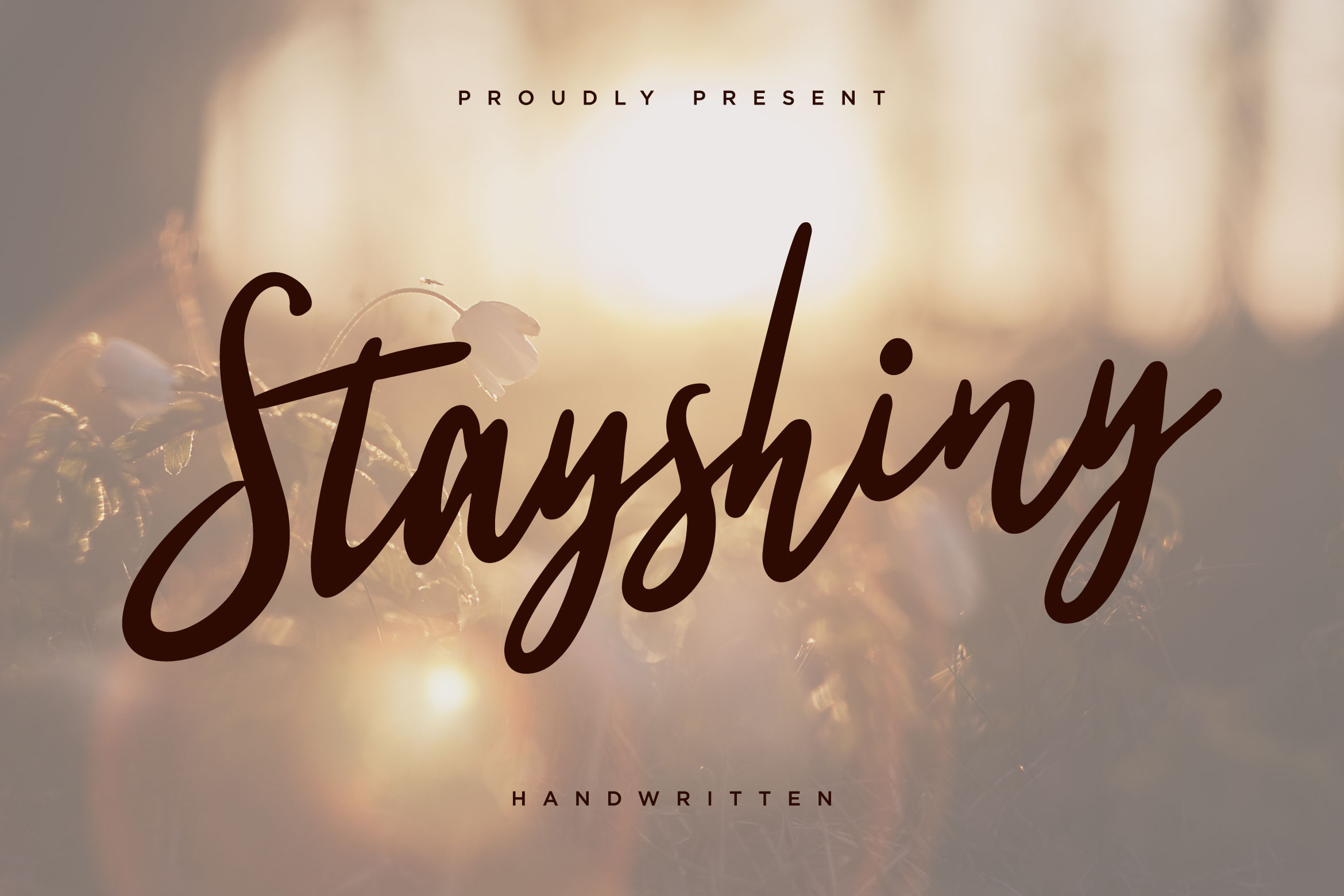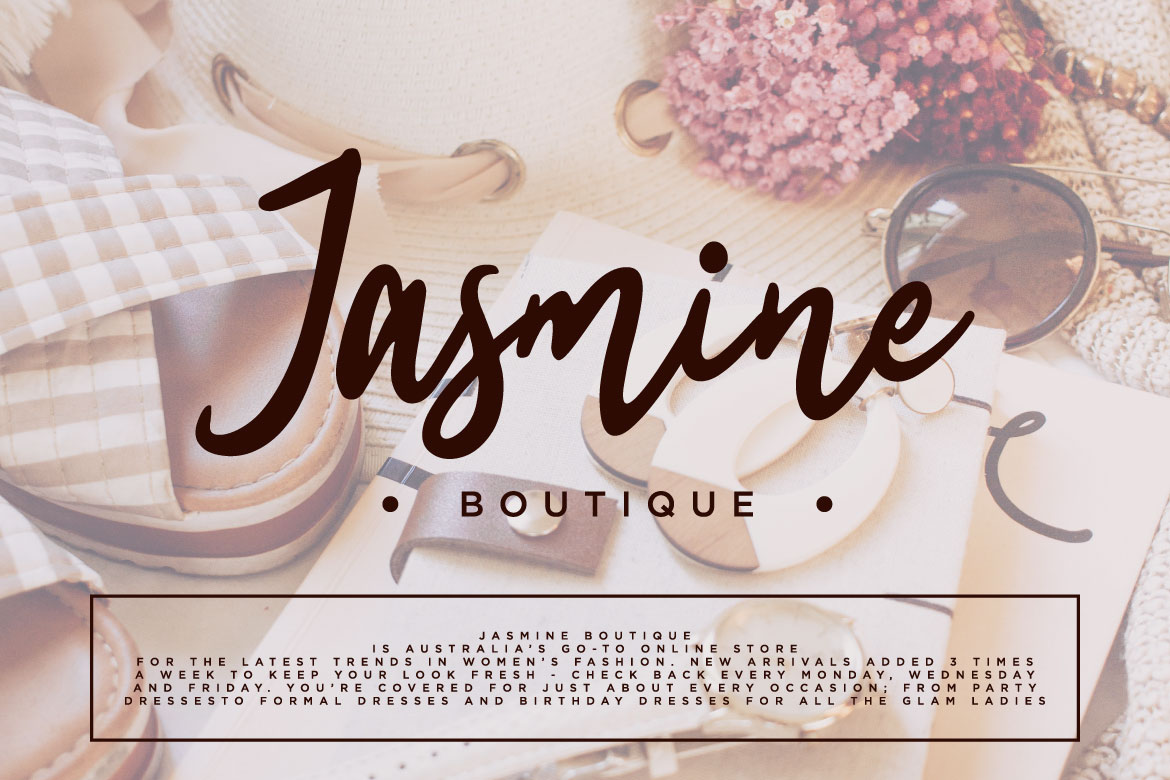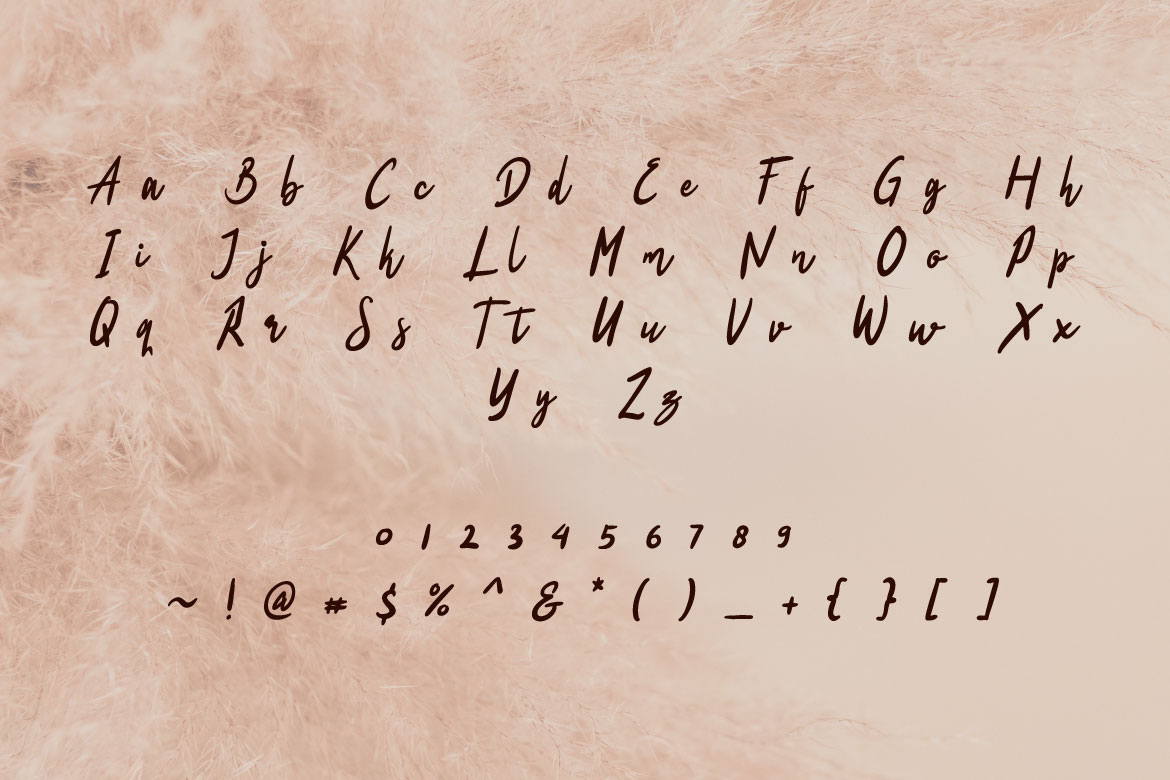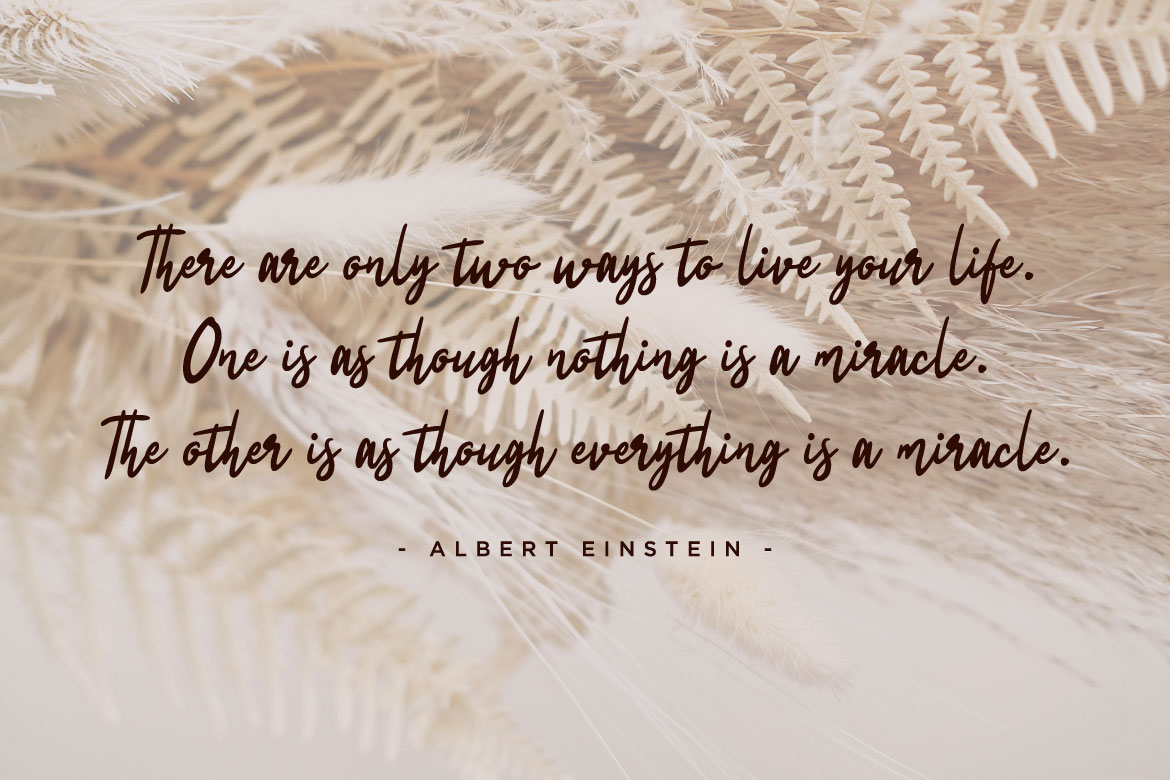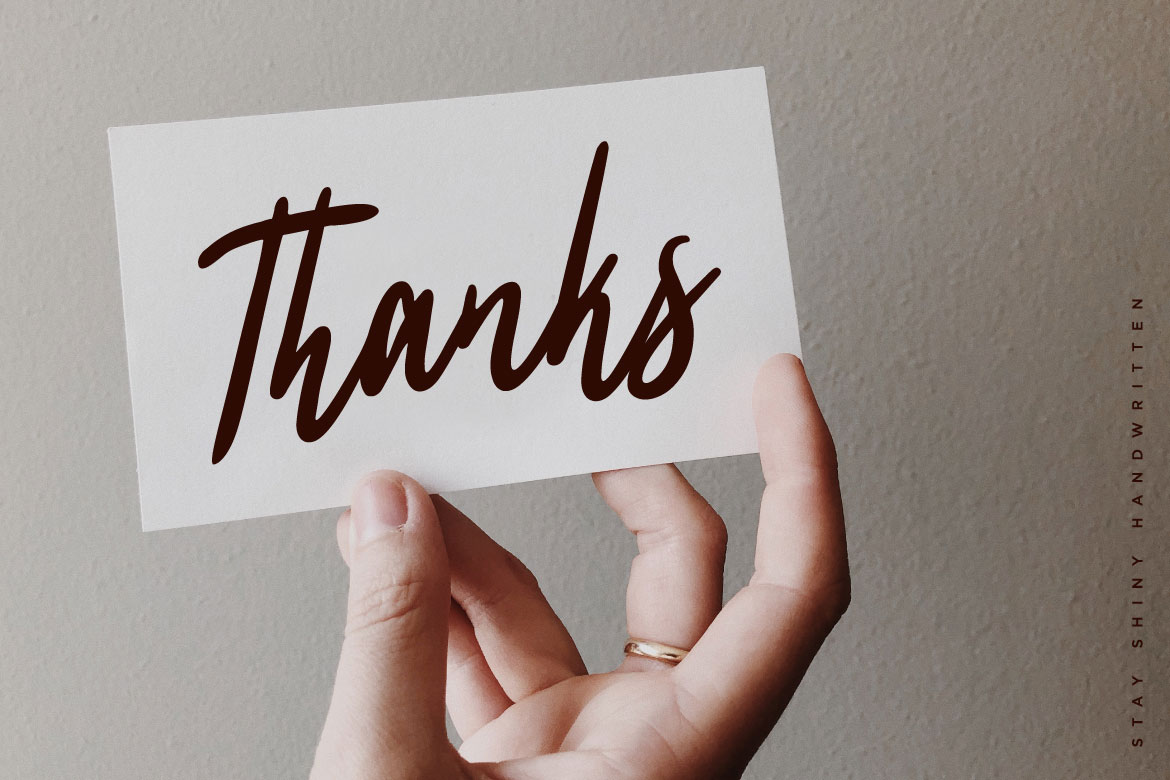
Stayshiny
Stayshiny is a modern handwritten script font that radiates warmth and elegance with every stroke. Designed to mimic the natural flow of handwriting, this font combines smooth curves and refined ligatures, making it perfect for projects that require a personal, heartfelt touch. Whether you’re designing logos, packaging, greeting cards, or inspirational quotes, Stayshiny brings a human element that feels genuine and approachable.
Its stylish letterforms are both casual and graceful, making it suitable for a wide range of applications. From boutique branding and beauty products to social media graphics and stationery. Stayshiny supports uppercase, lowercase, numerals, punctuation, and special characters, providing flexibility for creative projects with an intimate and expressive tone.